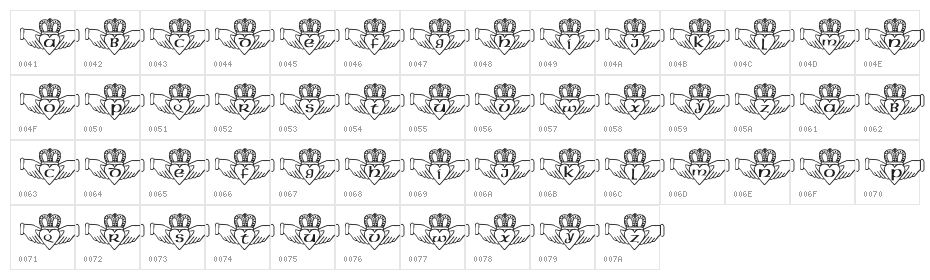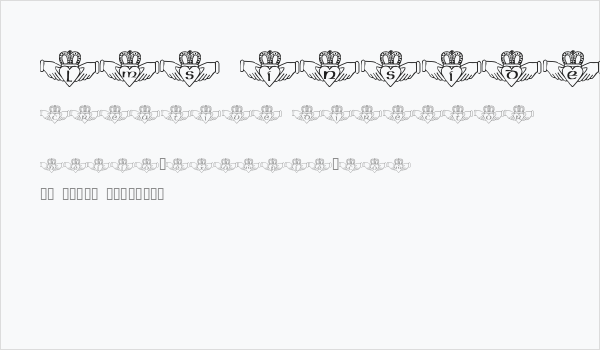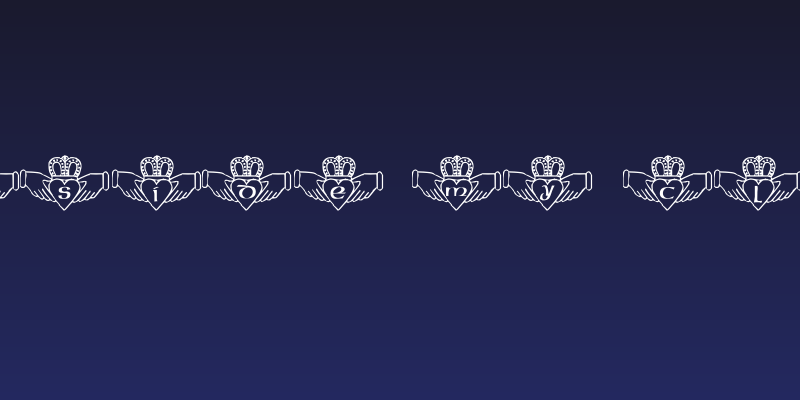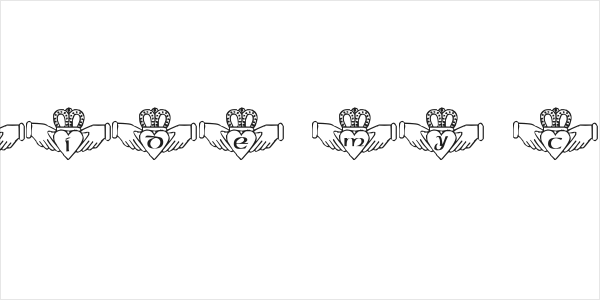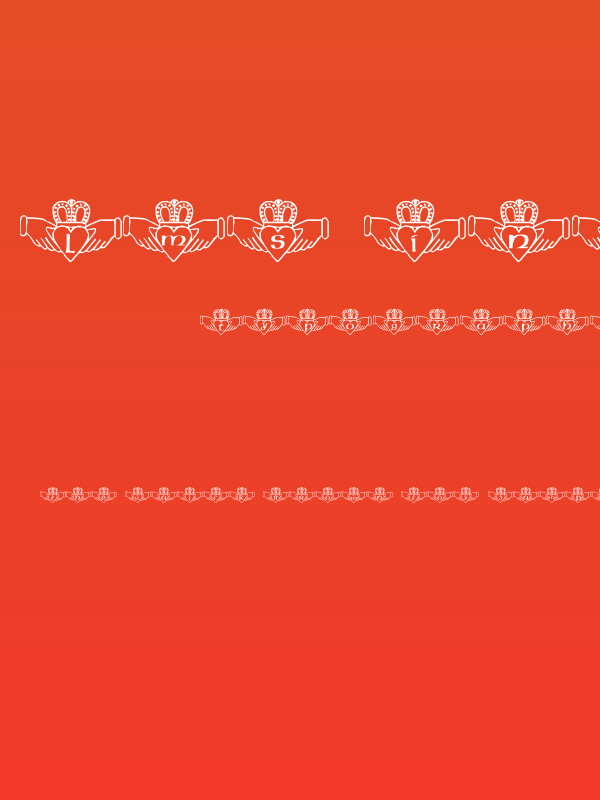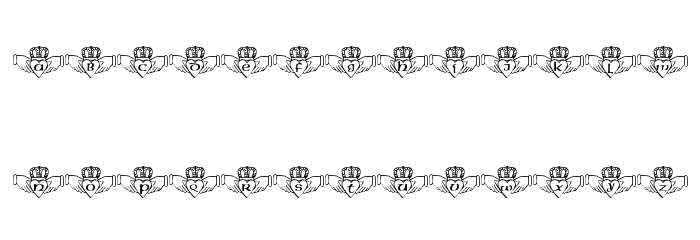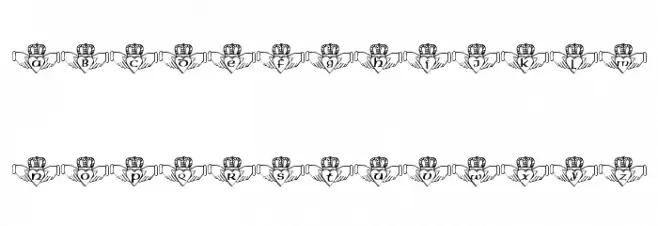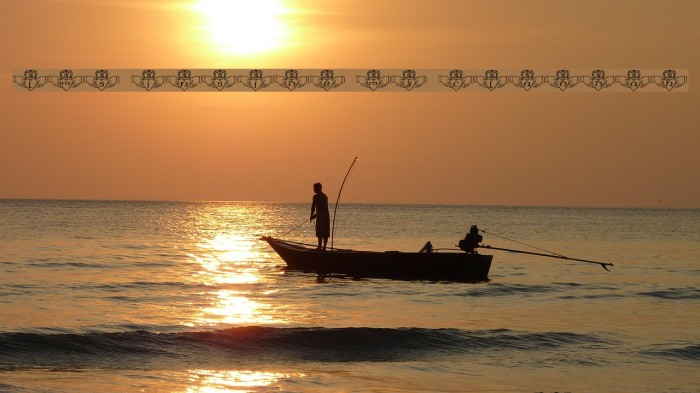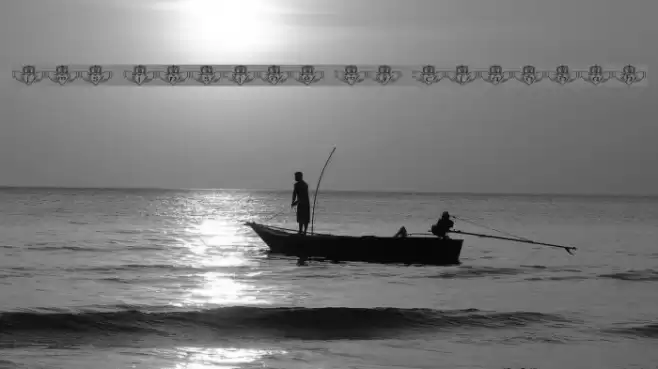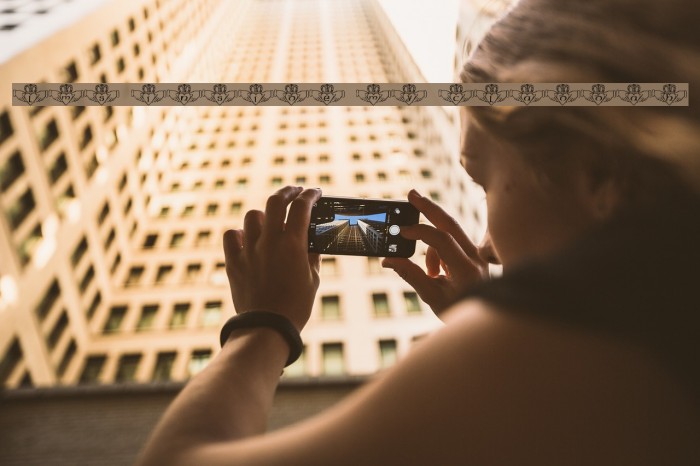
LMS Inside My Claddah Font
LMS Inside My Claddah Description
This decorative font features intricate designs inspired by the Claddagh symbol, incorporating elements of hands, hearts, and crowns into each character. The letters are adorned with detailed embellishments, creating a unique and ornate appearance. The font is highly stylized, with each character resembling a piece of art. Its intricate design makes it suitable for projects that require a touch of elegance and tradition, such as wedding invitations or themed events. The font's complexity and decorative nature make it stand out, offering a distinct visual appeal.
| Use Case | Headlines, Decorative purposes |
| Proposed Projects | Ideal for wedding invitations, themed event materials, and decorative headings. |